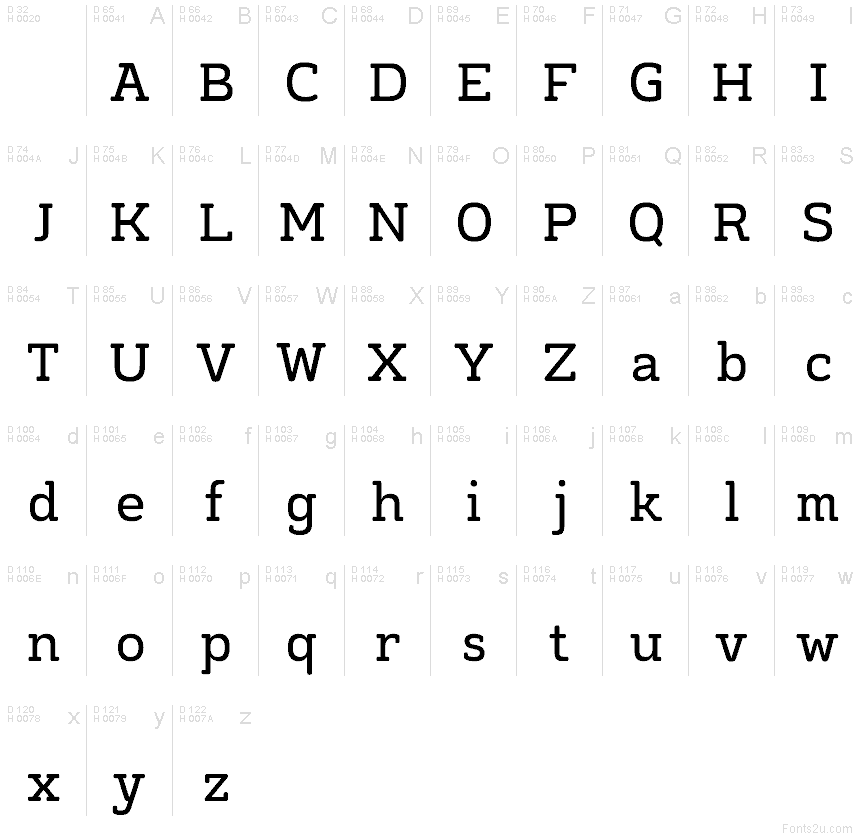
Monradok font by Jipatype is a free serif typeface that finally hits that sweet spot between sturdy readability and quiet character. Its chunky, slightly squared serifs and generous counters feel solid on the page, while the even rhythm and calm proportions keep longer lines from feeling busy or cramped. There’s a subtle ink-trap flavor to the shapes that gives text a printed, almost bookish warmth, without tipping into nostalgia or fussiness.
Using Monradok, you get a serif that holds up in small sizes yet still looks confident in big, bold headlines. This free font works beautifully for editorial layouts, blogs, branding for thoughtful products, book interiors, posters, and study materials where clarity really matters. Pair Monradok with a clean geometric sans for captions or UI elements, and let Monradok handle the main text at slightly larger-than-usual sizes for a relaxed, readable feel.